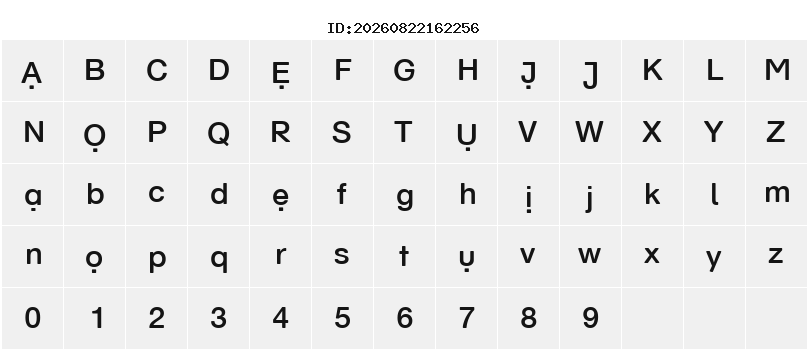
SchulVokalDots Preview
About SchulVokalDots.ttf
SchulVokalDots.ttf is a modern, elegant sans-serif font designed for ultimate readability and visual harmony. Perfect for branding, headlines, web design, and print materials.